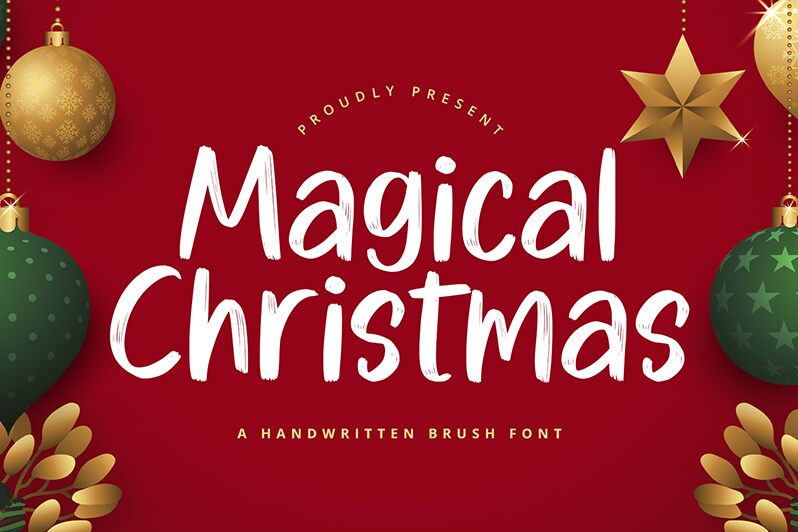
Magical Christmas
Magical Christmas font is a free handwritten font reminiscent of the style used on chalkboards. The joining letters include both uppercase and lowercase versions that flow smoothly together with modern casual strokes. They make the typeface appear decorative and festive while also giving off a neat yet playful style.